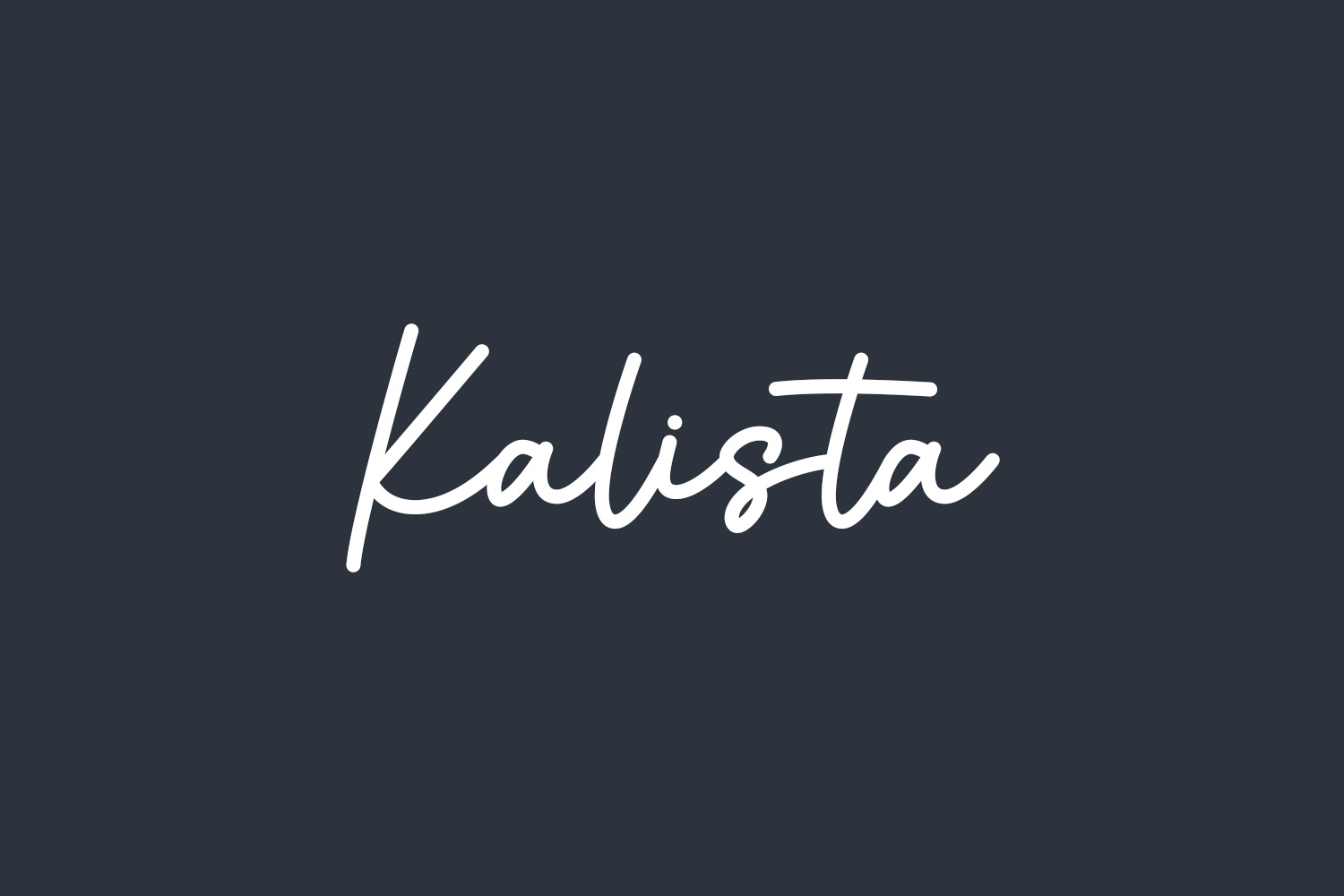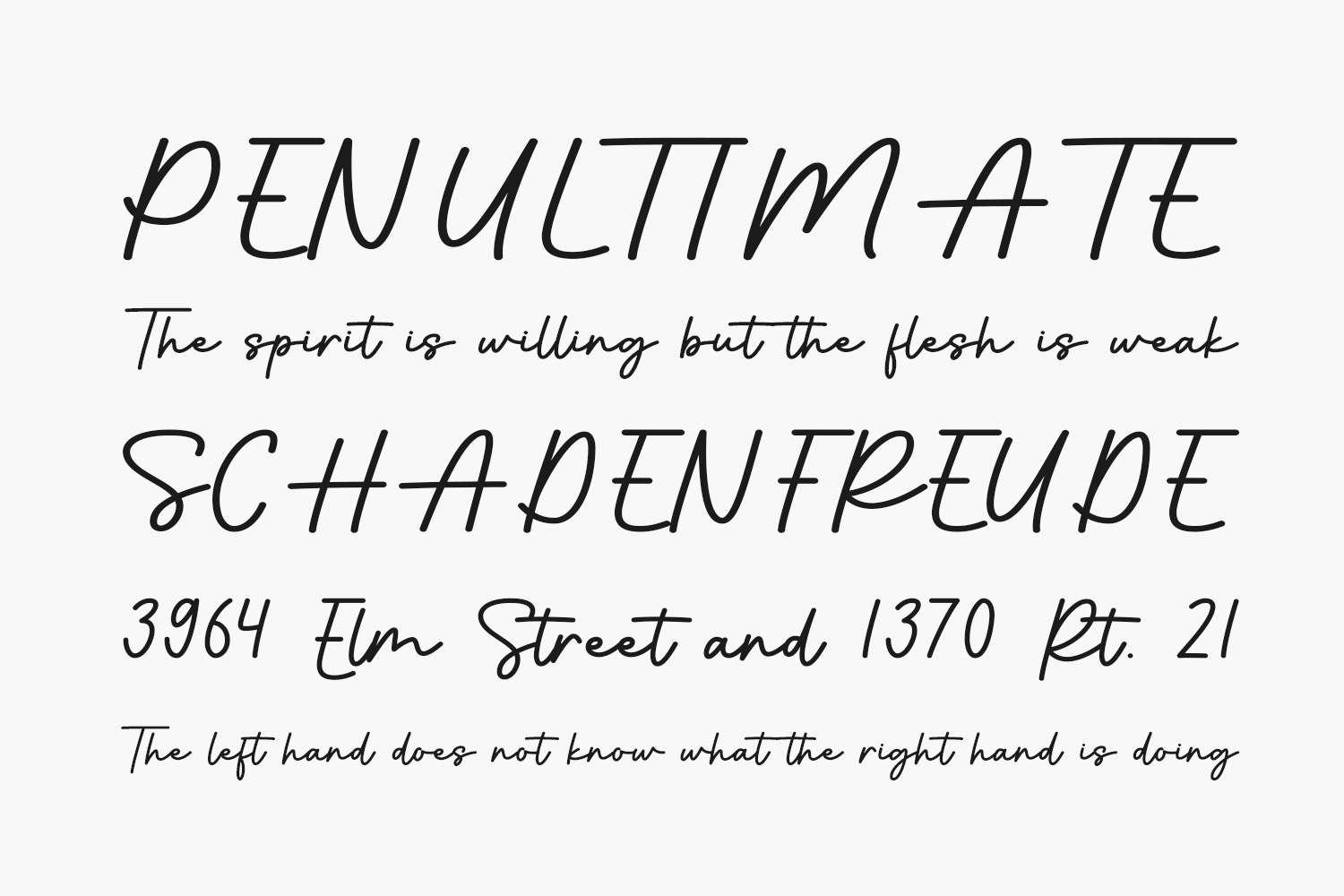
Kalista Free Font is a dainty and flowing handwritten font. Sweet and joyful, this font will be ideal for writing wedding invitations, cards, or any other design that may need a romantic, personalized touch. Kalista Free Font was designed by Nirmala Creative and is free for personal use only. Please purchase the full version for commercial use.